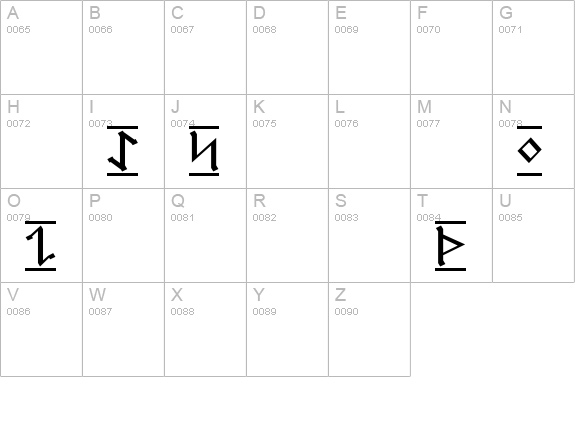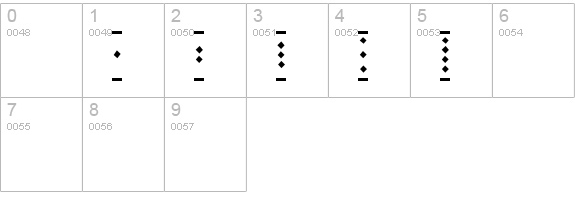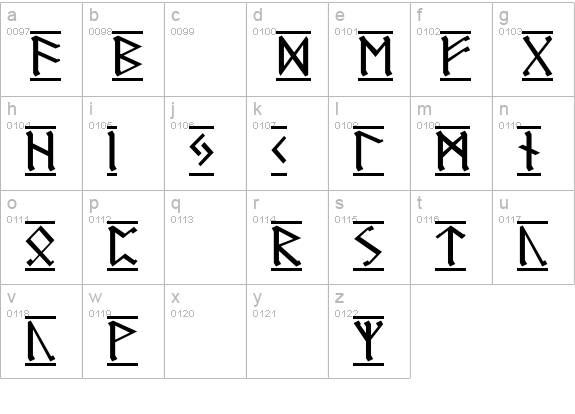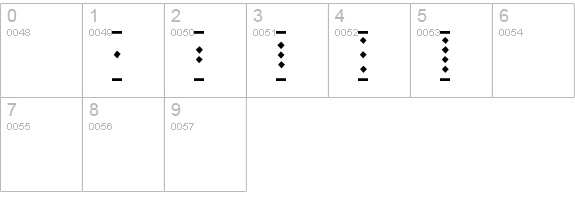
Germanic Runes 1 font is a stunning display typeface inspired by ancient Germanic runic symbols. This unique font captures the essence of history and mystery, making it perfect for adding a touch of the past to your designs. Each rune is meticulously crafted with intricate details that evoke a sense of ancient wisdom and power. This font is not only visually striking but also versatile, making it suitable for a wide range of projects, from branding to editorial design. Whether you're looking to create a mystical logo or give your posters a touch of the supernatural, Germanic Runes 1 font has got you covered. Best of all, this font is available for free download at FontsMarket.com, allowing you to unleash your creativity without breaking the bank. So why wait? Embrace the magic of the past with Germanic Runes 1 font today and take your designs to new heights.